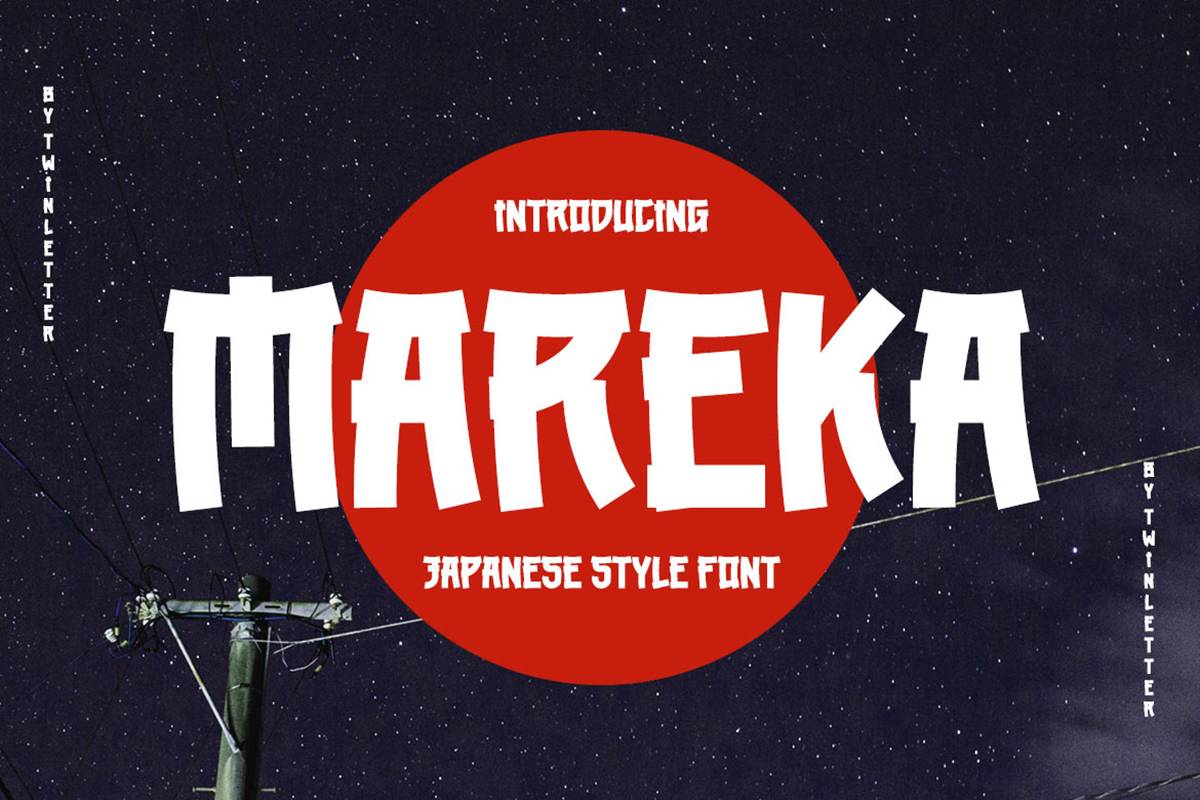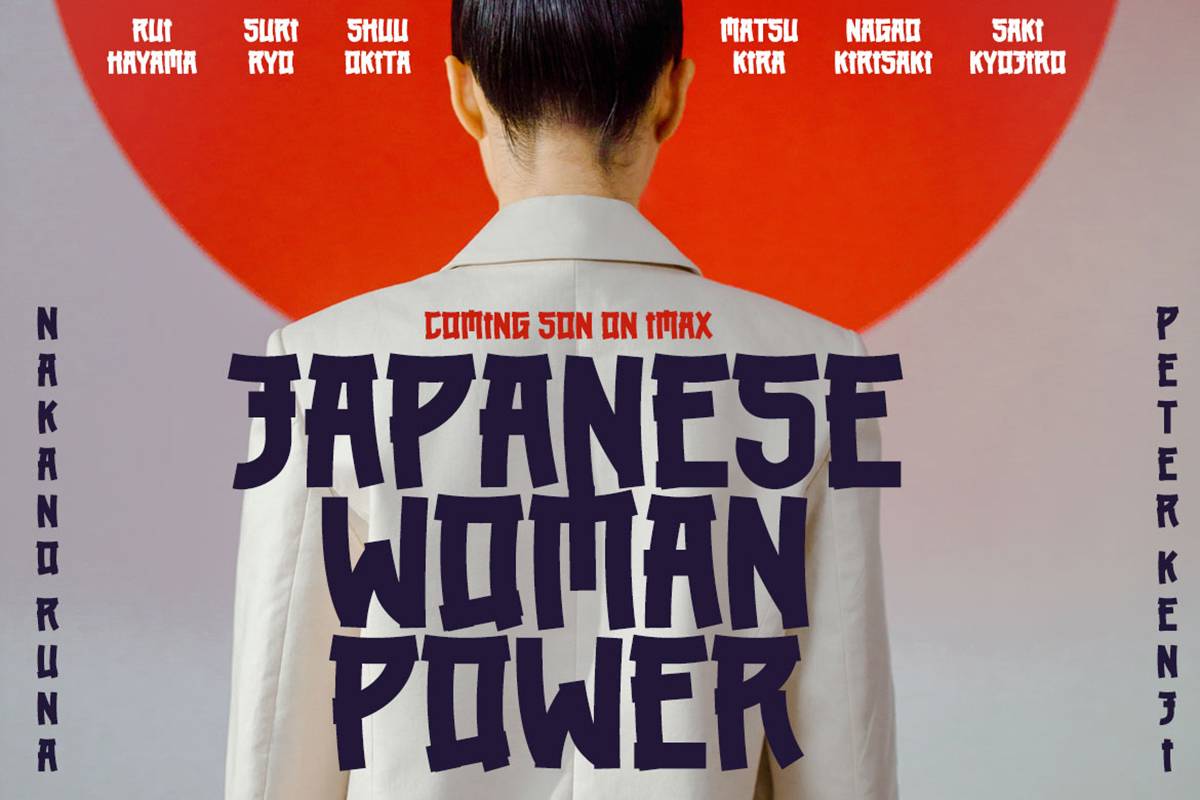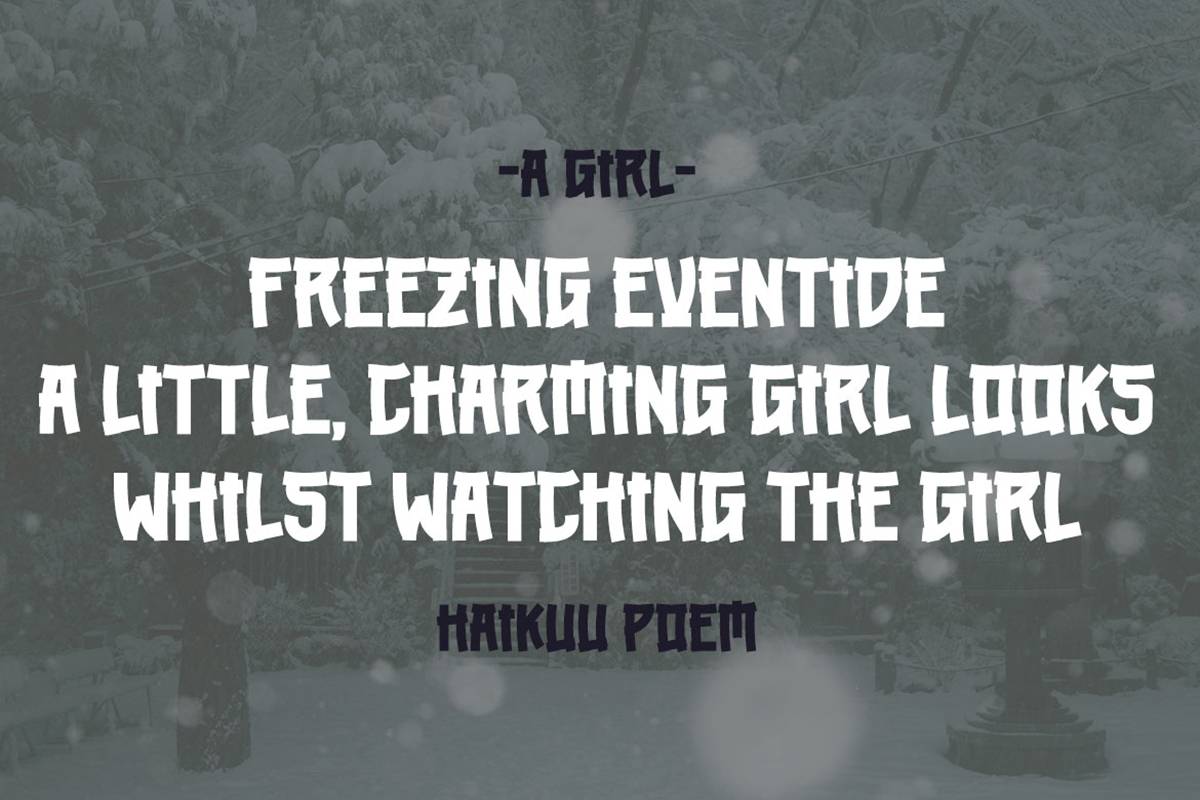
Mareka is a bold, condensed sans serif font with a playful, hand-crafted feel characterized by uneven, blocky letterforms and sharp angles. Its strong presence and quirky style make it ideal for eye-catching headlines, posters, and branding that wants to convey energy and creativity. This font works best where a fun yet impactful look is needed, such as in entertainment or casual lifestyle designs.
Mareka Font
About Mareka Font